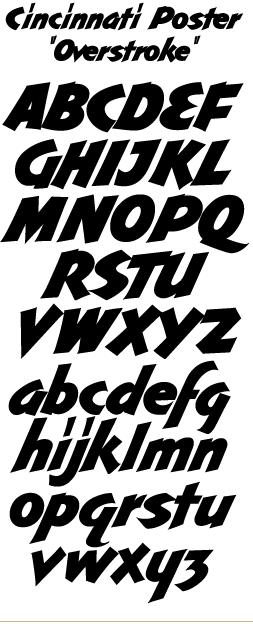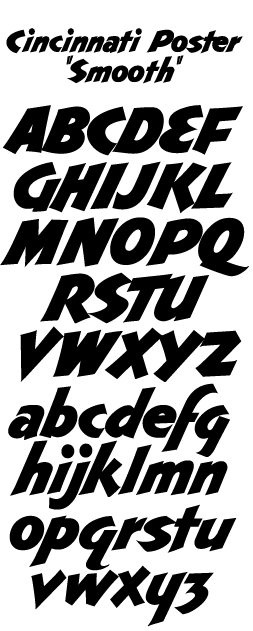
LHF Cincinnati Poster Timeless poster one-stroke, variations have
been seen since the invention of the poster-brush up to the present.
This one was developed from a plate in
an old Signs of the Times magazine. I don't have the name of the
original artist. Includes 2 versions.